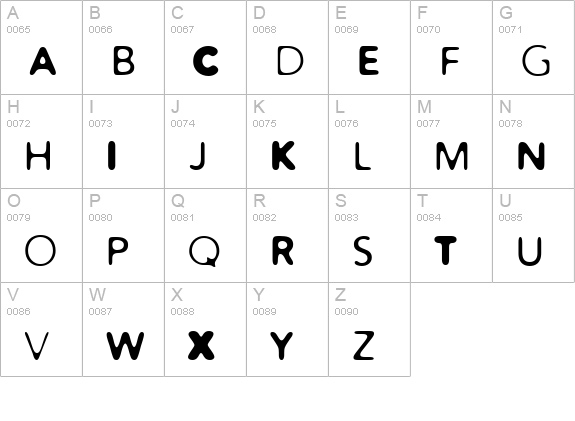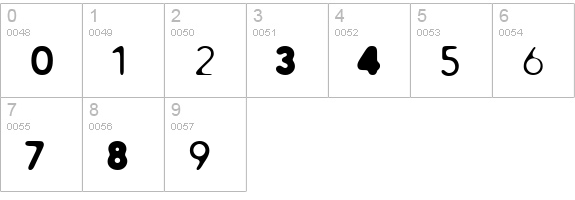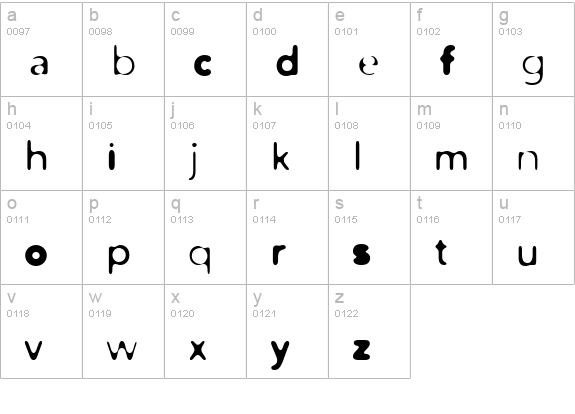
Distro Mix Font Details
Distro Mix font is a stunning typeface that effortlessly blends modernity with a touch of vintage charm. With its unique and versatile design, this font is perfect for a wide range of projects, from logos and branding to packaging and web design. What sets Distro Mix font apart is not only its aesthetic appeal but also its accessibility. It is freely available to download at FontsMarket.com, making it a fantastic choice for designers and creatives on a budget. This generosity allows anyone to bring a touch of elegance and sophistication to their work without breaking the bank. With its clean lines and well-defined curves, Distro Mix font exudes a sense of professionalism and refinement. Its legibility ensures that your message is conveyed effortlessly, while its captivating style adds a touch of personality to your designs. This font truly stands out and captivates the attention of your audience. Whether you need a font for a corporate project, a creative endeavor, or simply want to add a touch of sophistication to your personal designs, Distro Mix font is the perfect solution. Its versatility and timeless appeal make it a valuable asset in any designer's toolkit. In addition to its stunning design, Distro Mix font is easy to work with, allowing you to customize and adjust it to suit your specific needs. Its wide range of weights and styles provides endless possibilities, giving you the freedom to create truly unique and eye-catching designs. Embrace the elegance and sophistication of Distro Mix font today and elevate your designs to new heights. Download it for free at FontsMarket.com and unlock a world of creative possibilities.